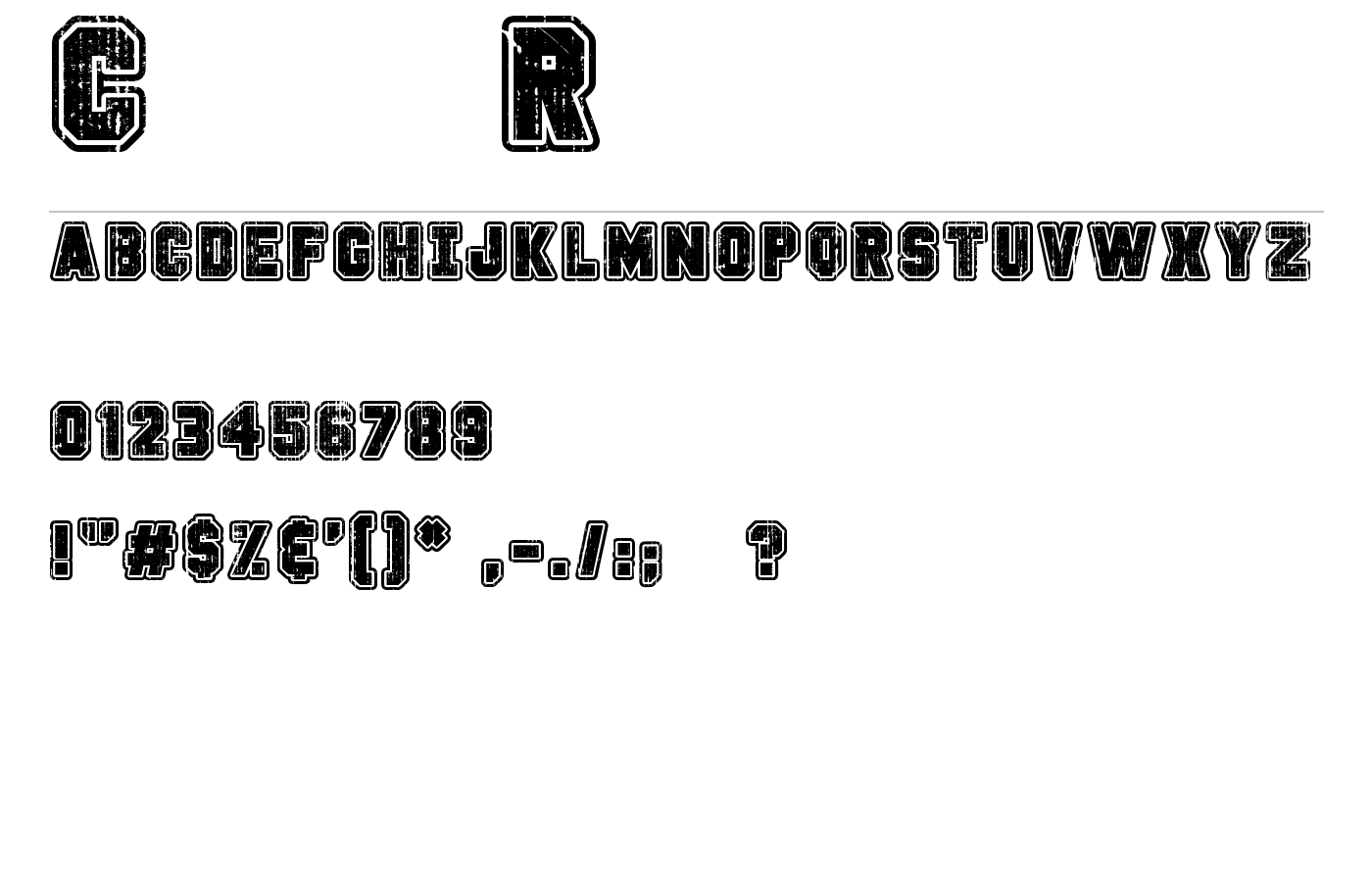
Campus Riot is a bold, condensed slab serif font with a distressed, worn texture that gives it a rugged, vintage varsity feel. Its strong, blocky letterforms and high contrast strokes evoke an energetic, collegiate spirit, making it perfect for sports team logos, posters, and apparel branding that seek a dynamic and rebellious edge. This font works best in headlining roles where its impactful style can command attention and convey a bold, youthful personality.
Campus Riot Font
About Campus Riot Font